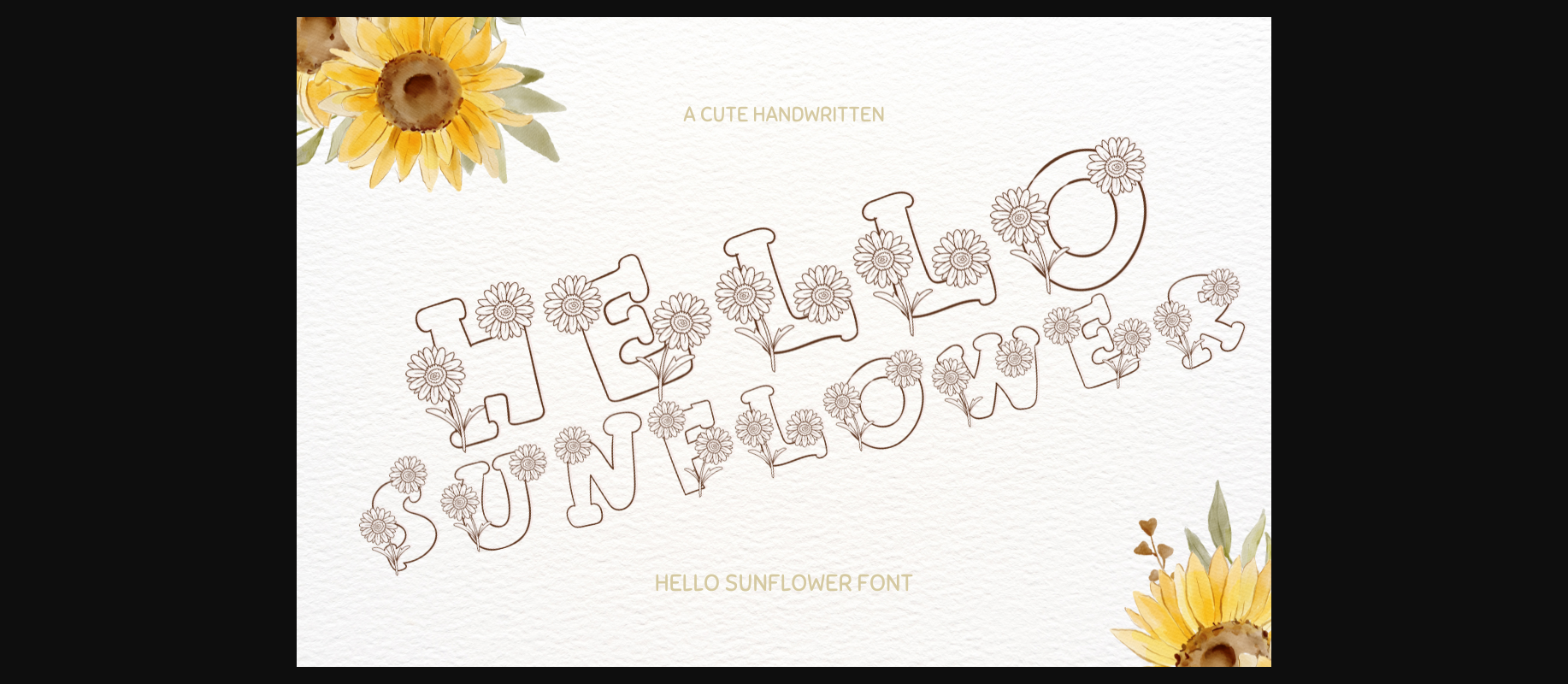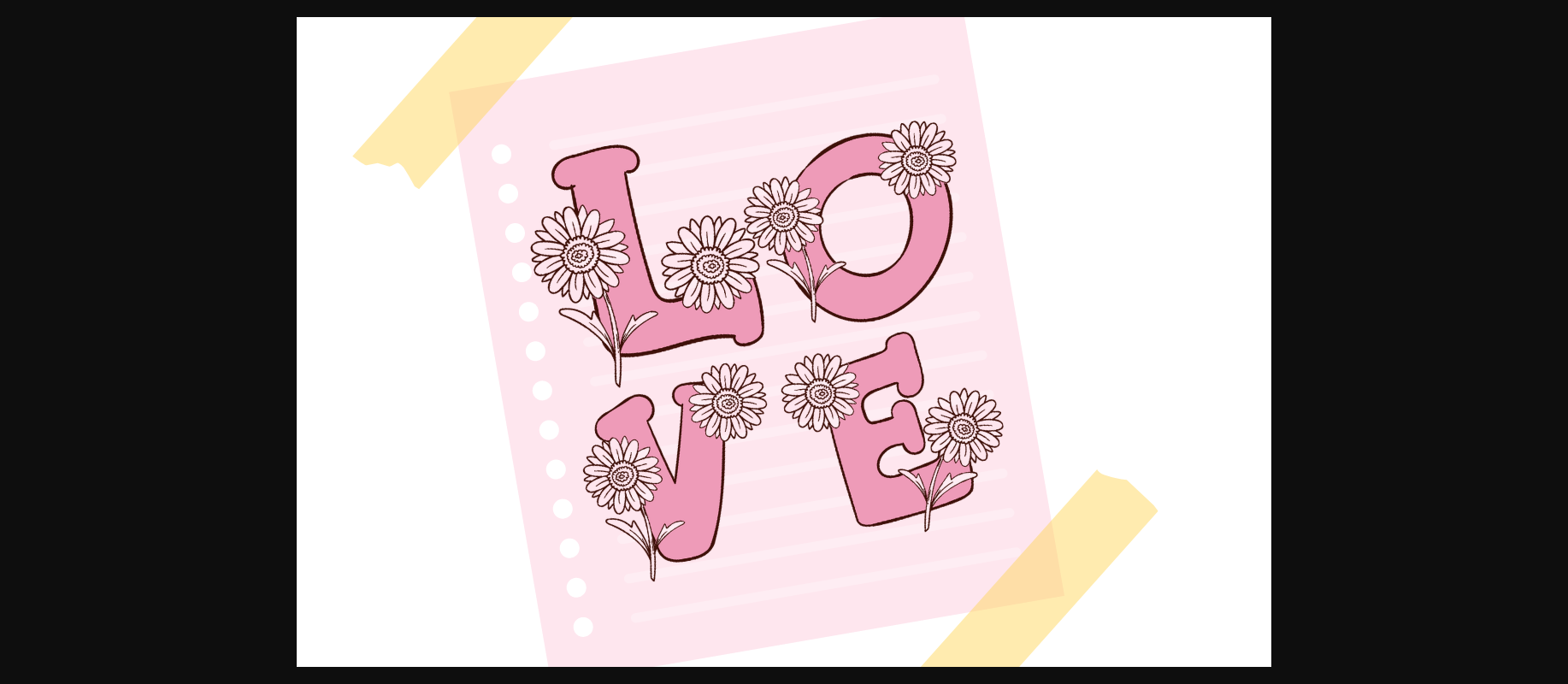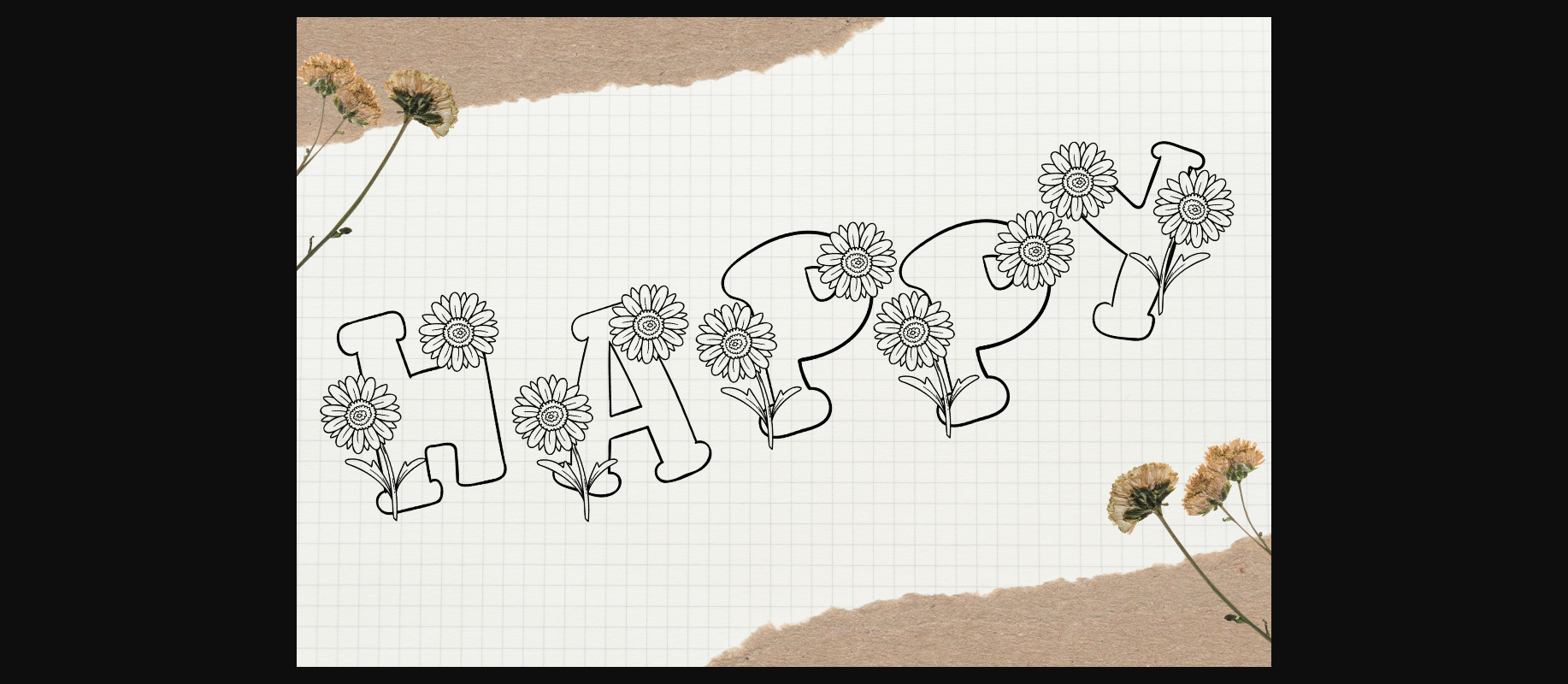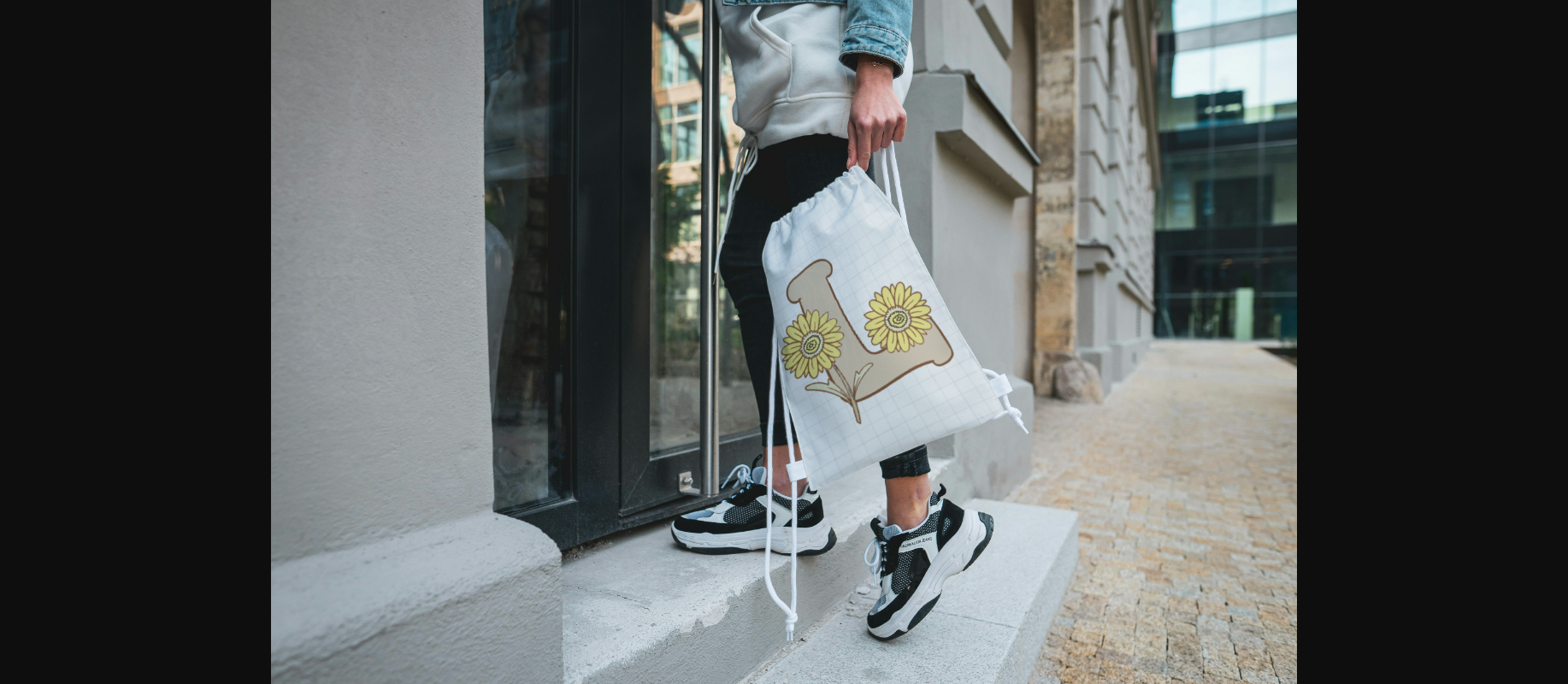
Hello Sunflower Font
About Hello Sunflower Font
Embrace the warmth of summer with Hello Sunflower, a charming decorative typeface designed for versatility. This modern font adds a touch of personality to your projects, whether you’re creating posters, invitations, headers, titles, greeting cards, or lettering. With its playful yet elegant design, Hello Sunflower brings a sunny disposition to every design endeavor. Let your creativity bloom with this delightful typeface that captures the essence of sunny days and cheerful vibes.